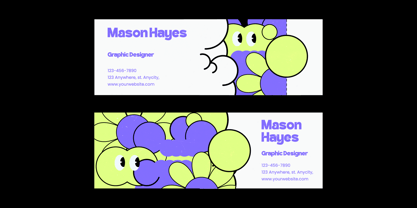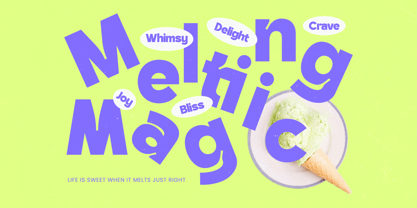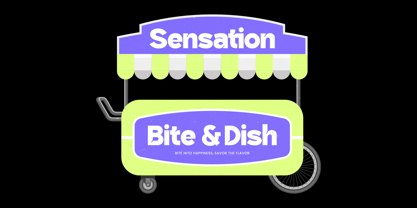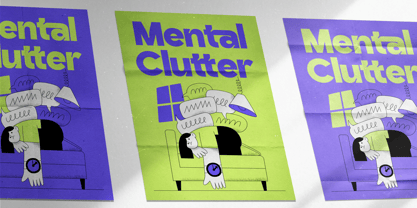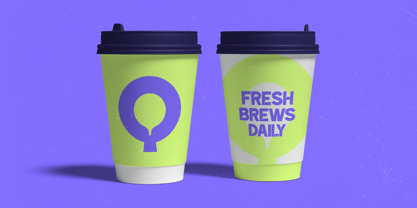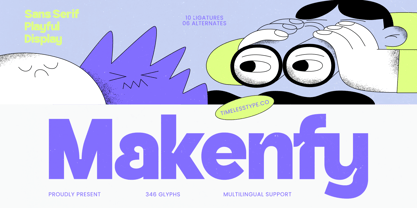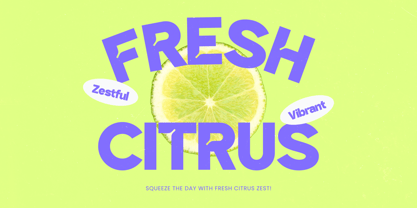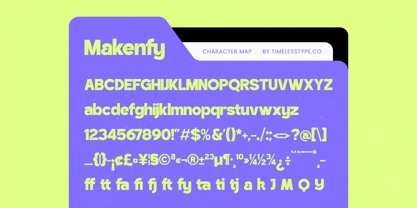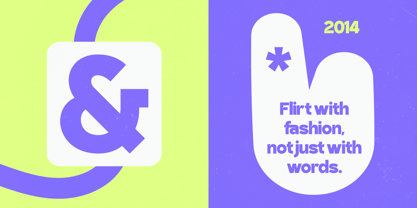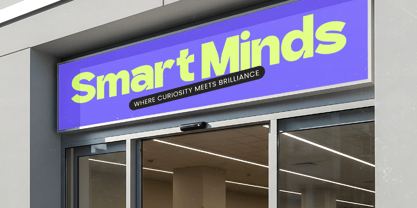
Makenfy
by Timelesstype Studio
The Makenfy Font Family was designed by Heru Utama Putra and published by Timelesstype Studio. Makenfy contains 2 styles and family package options. More about this family
Makenfy is a playful sans serif display font designed to bring energy, personality, and modern charm into your designs. With its bold rounded shapes and smooth curves, this typeface delivers a friendly yet eye-catching presence that works perfectly for creative and expressive projects. Built with 346 glyphs, 10 ligatures, and 6 alternates, Makenfy gives you enough flexibility to explore unique typography compositions while keeping everything clean and readable.
This font is ideal for branding, posters, social media content, kids-themed designs, packaging, and any project that needs a fun and approachable visual tone. Its soft geometric structure combined with a contemporary style makes it highly versatile for both digital and print use. Makenfy stands out as a modern display font that balances playfulness with professional quality.